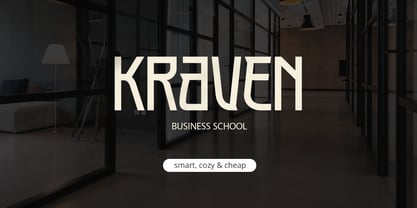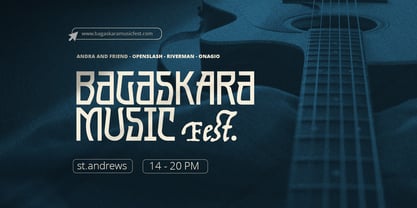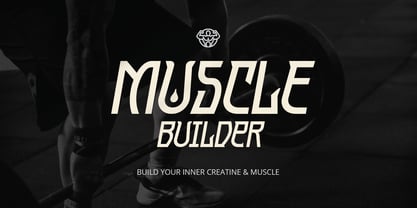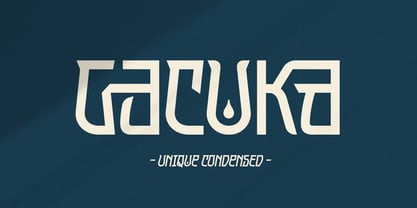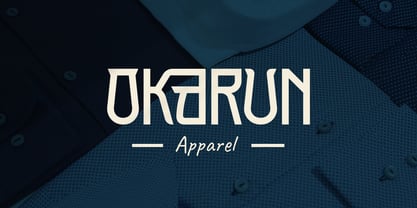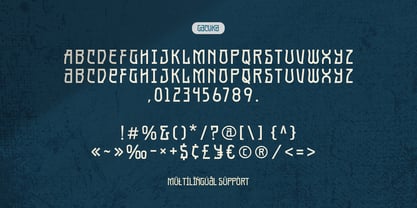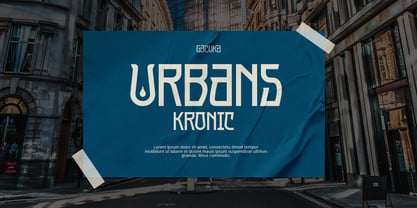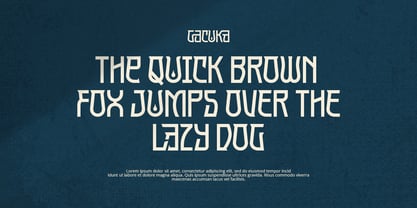
Gacuka
The Gacuka Font Family was designed by Jarnawi Saja and published by Grontype. Gacuka contains 2 styles and family package options.
Gacuka is a modern semi-condensed typeface that blends creativity with clean design, making it a standout choice for impactful headers and striking titles. With its unique and expressive letterforms, Gacuka delivers a distinctive personality while maintaining legibility and balance. Designed for creatives and brands who want to make a bold statement, Gacuka features smooth curves, sharp edges, and a dynamic rhythm that sets it apart from traditional sans-serifs. This font comes equipped with thoughtfully crafted ligatures that enhance visual flow and give your text a custom, high-end look—perfect for logos, posters, editorial headlines, and digital design.
Features:
• Modern Style Font
• Unique Semi-Condensed Font
• Basic Latin Glyphs
• Uppercase and Lowercase
• Numeral and Punctuation
• Currencies
• Multilingual Support